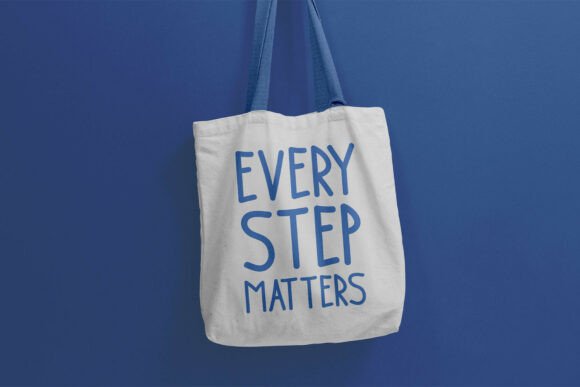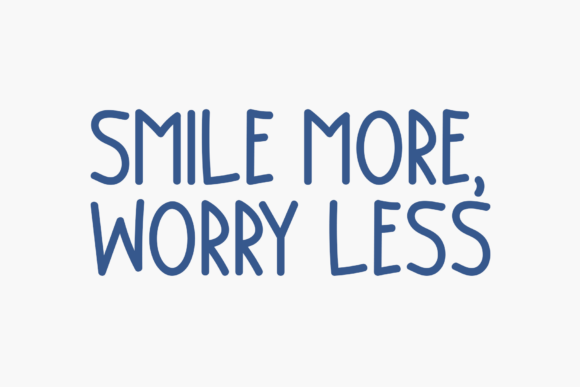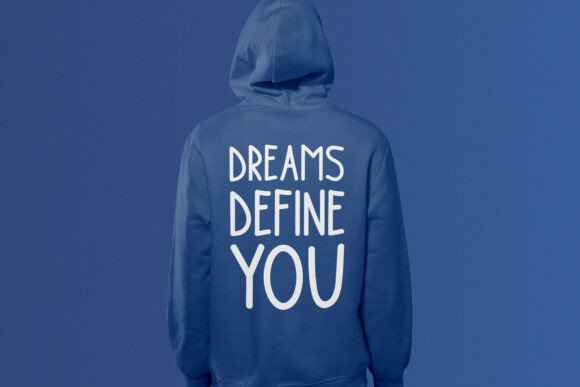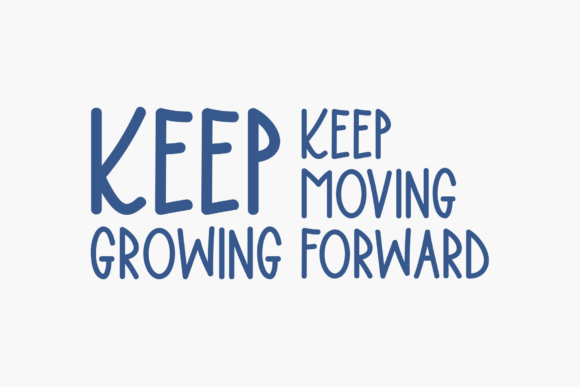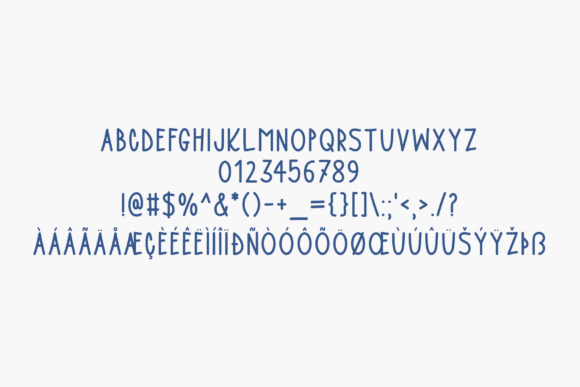
Introduction to Hope Wins Font
Hope Wins is a sweet and charming handwritten font designed to bring positivity and elegance to your creations.
Its gentle curves and flowing style make it perfect for a variety of projects, including stationery, apparel, branding, posters, invitations, and digital media Whether youโre crafting something inspiring or simply adding a touch of beauty to your work, Hope Wins delivers a warm, handcrafted feel that speaks from the heart.
Key Features of Hope Wins Font
Why Choose Hope Wins Font?
Hope Wins Font offers exceptional quality and versatility, making it a valuable addition to your design toolkit. Whether you’re creating for personal projects or commercial use, Hope Wins Font delivers professional results.